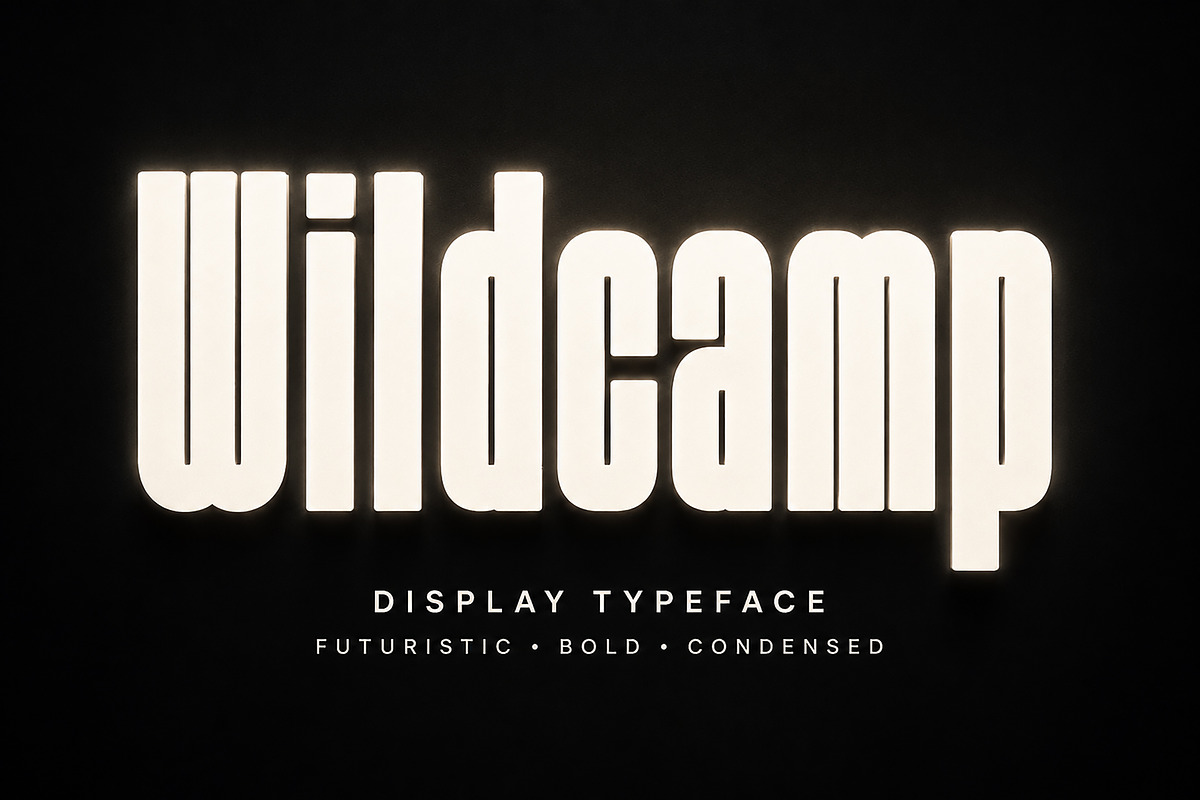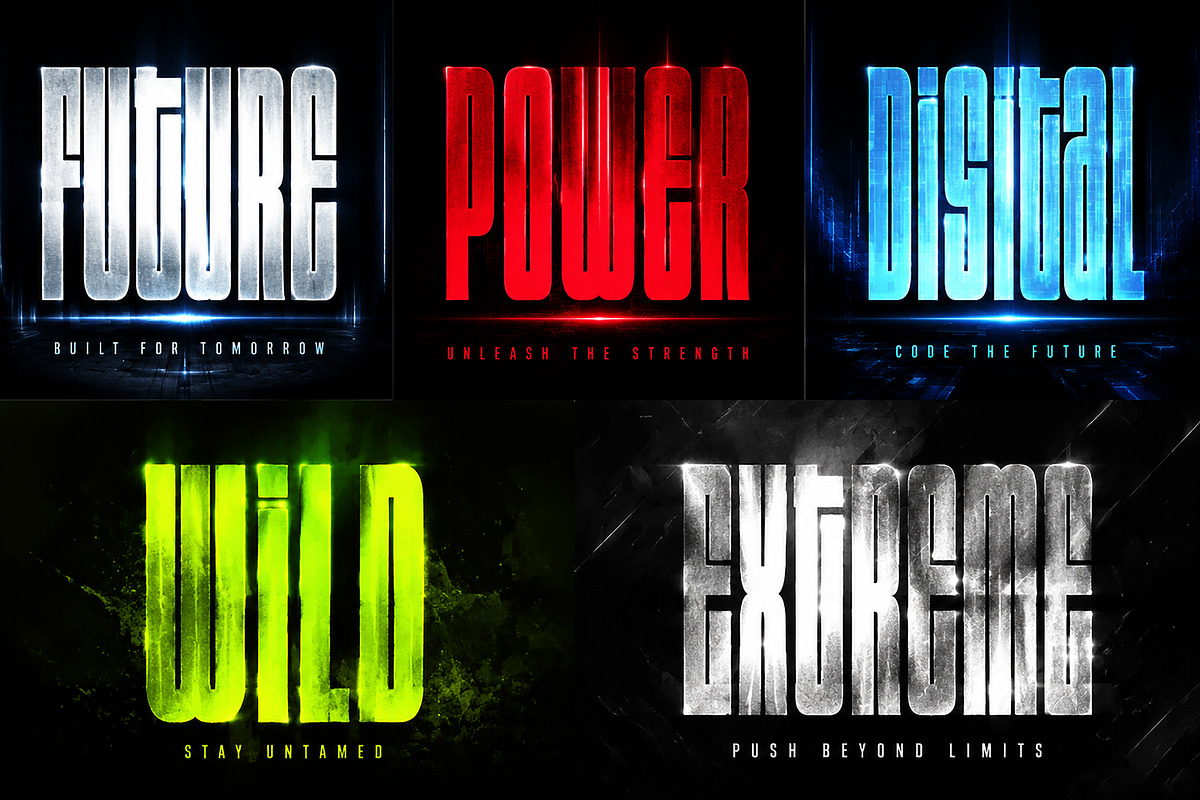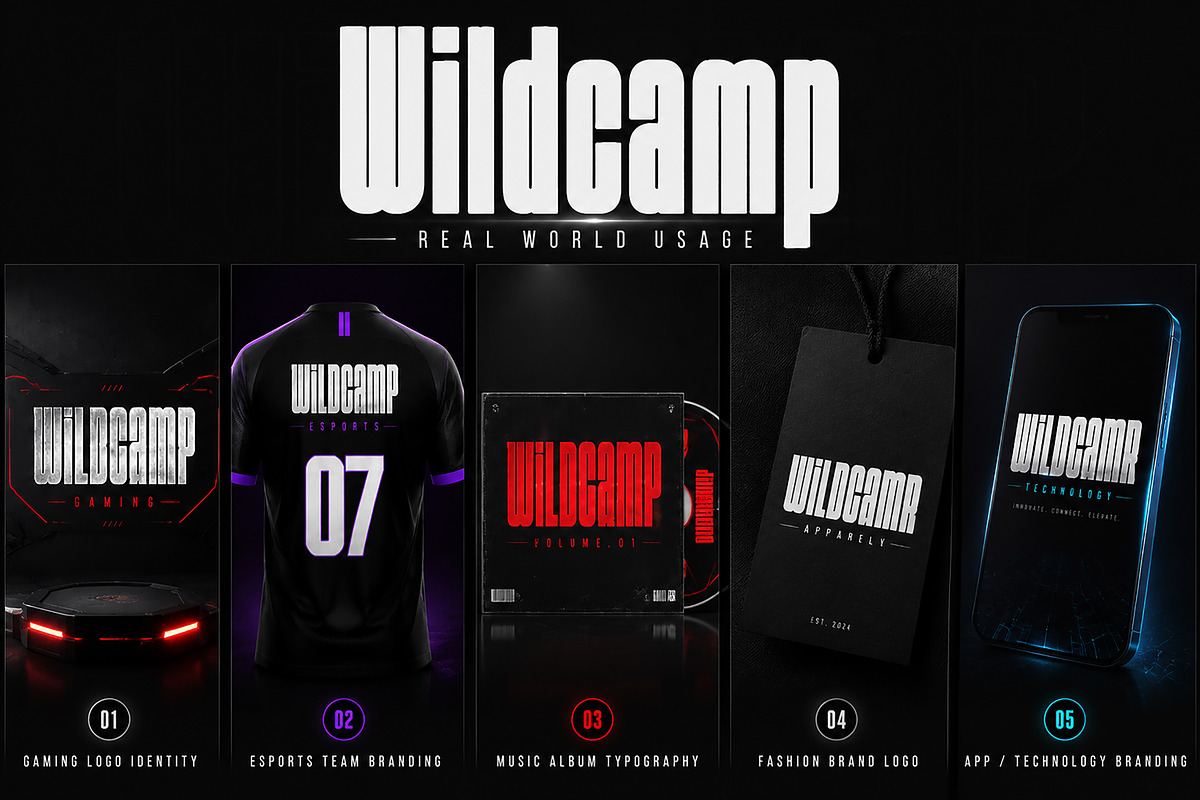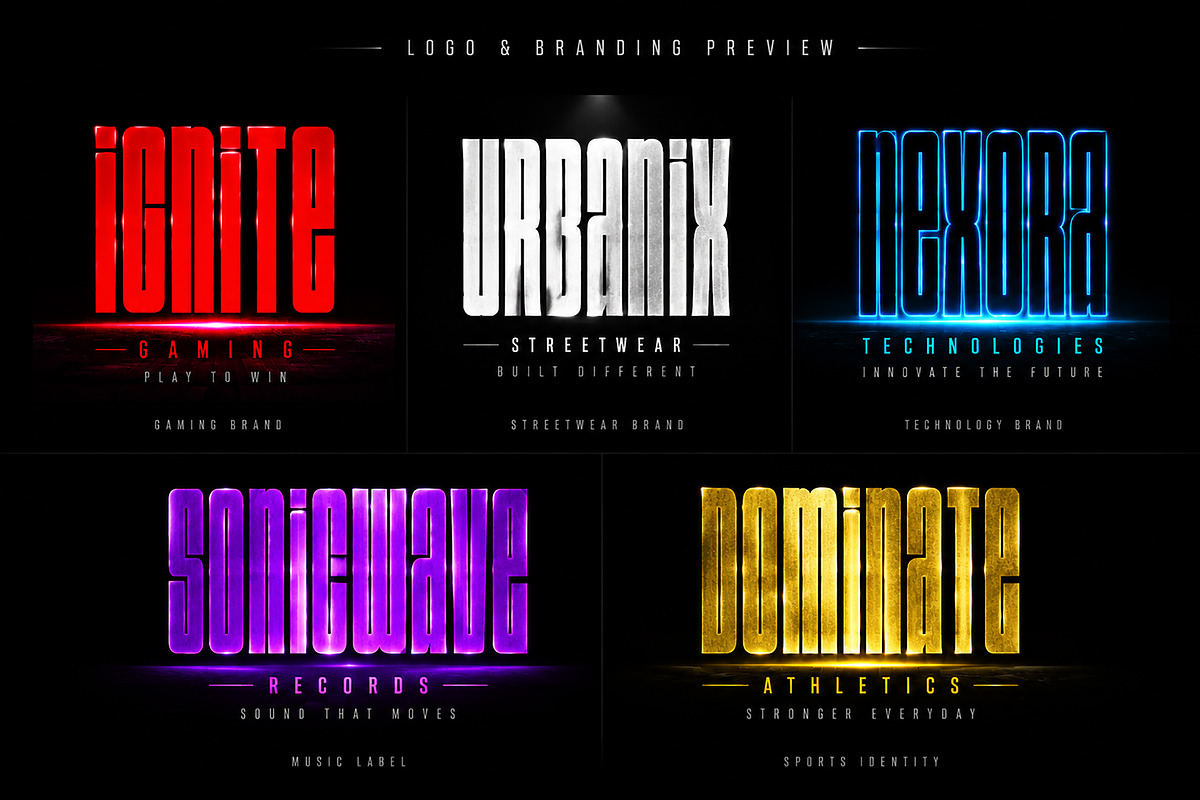
Wildcamp
Wildcamp – Futuristic Bold Display Typeface
Wildcamp is a powerful futuristic display font designed for creators who want to make a strong visual impact. Featuring a bold condensed structure with a modern geometric feel, this typeface brings a premium and energetic style to logos, branding, posters, gaming designs, sports identities, and digital projects.
Inspired by futuristic technology, esports culture, and modern street aesthetics, Wildcamp delivers a strong personality that works perfectly for attention-grabbing headlines and impactful typography compositions.
Whether you are designing a gaming logo, technology brand identity, fashion label, album cover, poster artwork, or social media graphics, Wildcamp helps your designs stand out with a unique and professional appearance.
✔ Gaming & Esports Branding
✔ Logo Design
✔ Sports Identity
✔ Technology Branding
✔ Fashion & Streetwear Projects
✔ Music Covers
✔ Movie Titles & Posters
✔ Advertising & Promotional Graphics
✔ Social Media Designs
✔ Modern Editorial Headlines
✔ Futuristic Bold Display Style
✔ Strong Condensed Letter Structure
✔ Clean & Professional Design
✔ Perfect for Large Titles and Headlines
✔ High Impact Visual Appearance
✔ Easy to Use in Creative Projects
Create powerful visuals with Wildcamp — a bold futuristic typeface built for modern branding, gaming, and creative designs.